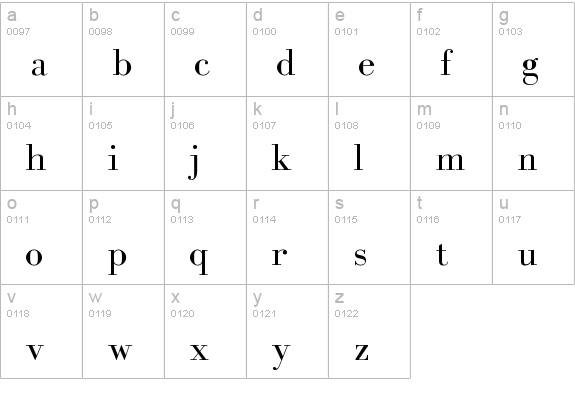
BodoniFLF-Roman font is a timeless and elegant typeface that exudes sophistication and class. With its clean lines, delicate curves, and balanced proportions, this font is perfect for adding a touch of refinement to any design project. Designed by Giambattista Bodoni in the late 18th century, this font has stood the test of time and continues to be a popular choice among designers, typographers, and artists alike. Its graceful letterforms and sharp serifs give it a distinct and recognizable look that demands attention. One of the greatest advantages of BodoniFLF-Roman font is that it is freely available to download at FontsMarket.com. This means that designers and creatives can easily access this beautiful typeface without any cost, making it an ideal choice for those who are working on a tight budget or simply appreciate the value of free resources. Whether you're creating a logo, designing a book cover, or crafting a poster, BodoniFLF-Roman font will add a touch of elegance and sophistication to your project. Its versatility allows it to be used in a variety of contexts, from formal invitations to modern digital graphics. With its bold presence and refined aesthetics, BodoniFLF-Roman font is sure to make a lasting impression. Download it for free at FontsMarket.com and elevate your designs with this timeless typeface.